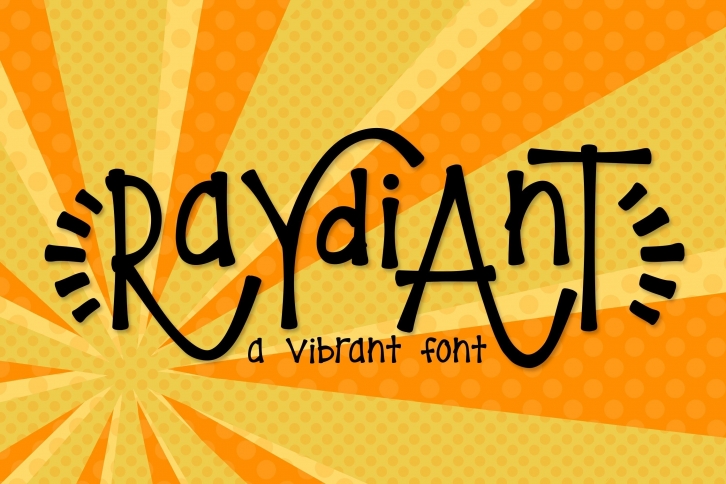
Introducing Raydiant, the unique font that will add some personality to your designs. This quirky font is inspired by the rays of the sun and features alternate upper and lowercase characters to create unique words every time. Whether you’re looking to add some fun to your website or add a bit of personality to your business cards, Raydiant is the perfect font for you.